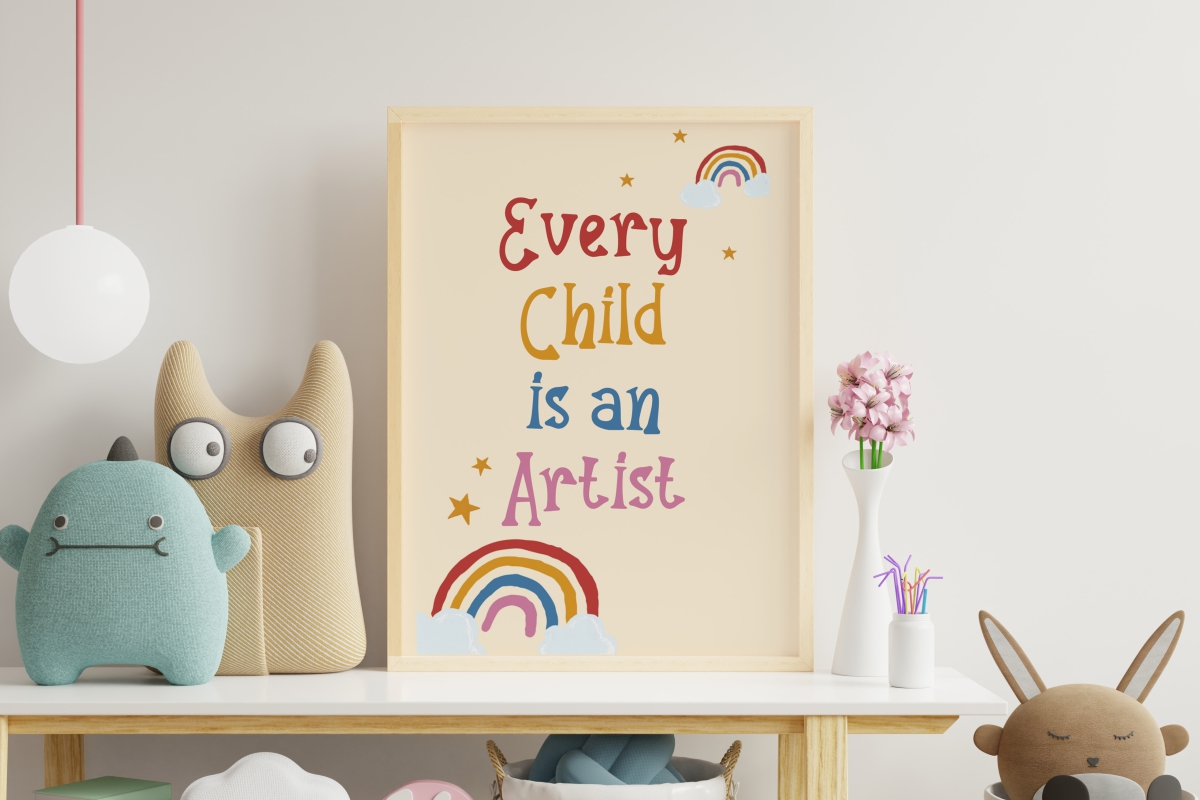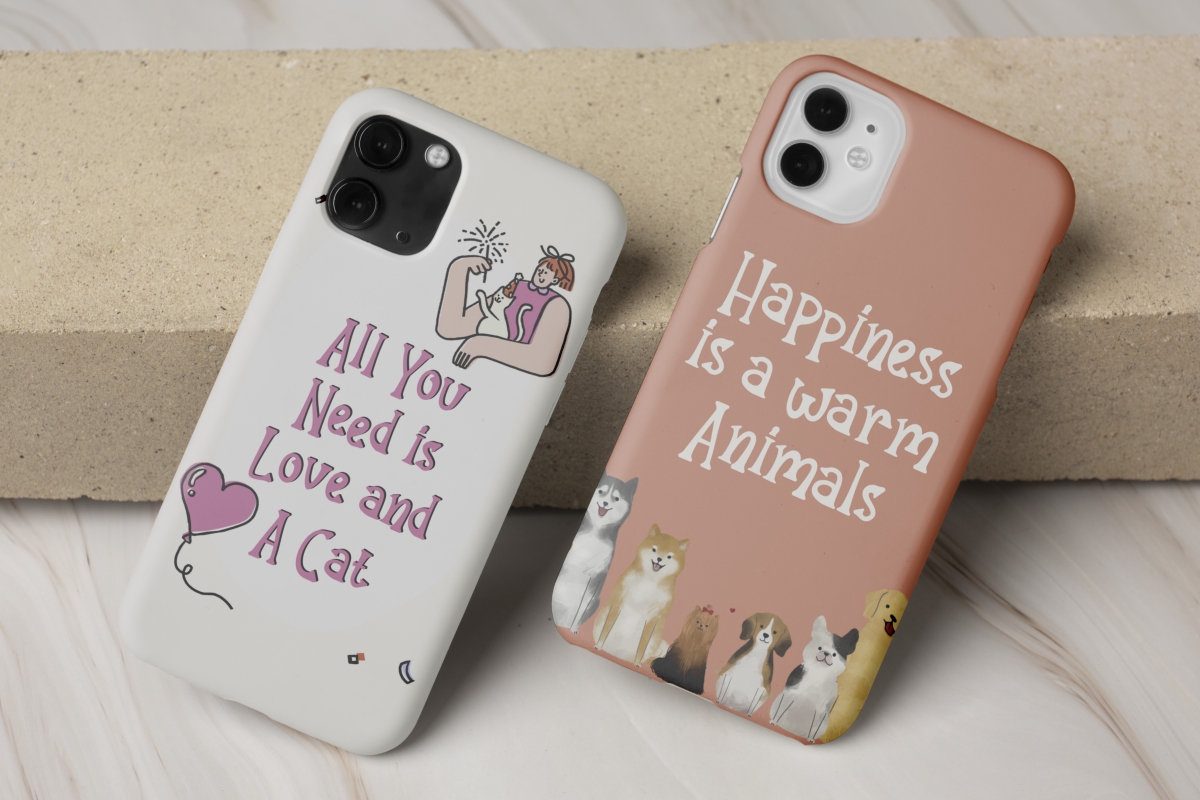
Hearty Kitten Font
Hearty Kitten Display Font is a cute display font inspired from an adorable creature : Cats. This font has cute characters like the writing you’d find in a comic book. It would be perfect for many industries, such as accessories, advertising, animation/film, advertising, baby gear, cartoon, clothing brand, handicrafts, kids perfume, library, pet shop, printing, publishing, school, toy, veterinarian, and more!
Hearty Kitten Font includes full set of Uppercase and Lowercase Basic Characters, Numerals and Punctuation. This stylish font also has ligature characters which will be the best choice for various projects, such as cover, frame art, headline, labels, product packaging, screen printing, signage, stationery, website, etc.